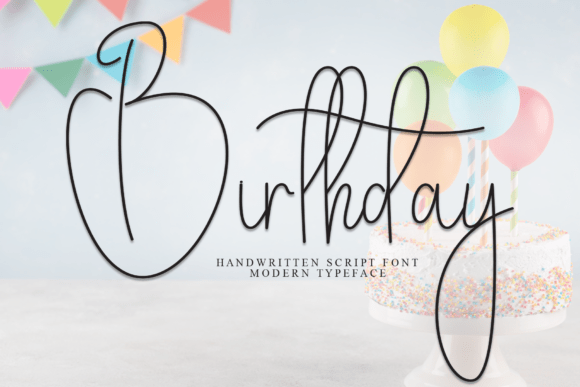
A Celebration of Creativity: The Birthday Font
Have you ever been browsing through a friend’s wedding invitation or a child’s birthday card and felt an instant rush of joy and warmth? That’s the magic of a well-designed font. It’s the first thing that catches our eye, sets the tone for the message, and makes us feel something. Today, we’re excited to introduce you to the Birthday Font, a charmingly casual, handwritten display font that’s sure to bring a smile to your face.
Perfect for adding a playful touch to your design projects, the Birthday Font is a valuable addition to any designer’s toolkit. Whether you’re creating wedding invites, greeting cards, or any other design that needs a dash of fun, this font is an unrivaled pick. Its sweetness and carefree style is sure to infuse joy and whimsy into your creative endeavors.
Birthday Font Key Features
- Unique Characteristics: The Birthday Font features a playful, cursive design with swashes and flourishes, making it perfect for adding a celebratory touch to birthday invitations, cards, and other designs.
Birthday Font Review
Overall, I think the Birthday Font has some great qualities, but it also has some limitations that might make it less appealing to some users.
- Cute and playful design: The font is perfect for creating a festive atmosphere, especially for birthday celebrations or children’s parties.
- High-quality graphics: The font is well-designed and has a professional feel to it, making it suitable for use in a variety of contexts.
- Limited versatility: The font is primarily designed for birthday celebrations, which might limit its use in other contexts.
- Not suitable for formal use: The font’s playful design might not be suitable for formal or professional use, such as in business presentations or documents.
While the Birthday Font has some great qualities, its limitations might make it less appealing to some users. However, for those who are looking for a cute and playful font specifically for birthday celebrations, this might be a great option.
Tips for Getting the Most Out of the Birthday Font
Use bold or italic styles to add emphasis to the Birthday Font.
Combine the Birthday Font with other creative elements, such as balloons or confetti, to create a festive atmosphere.
Birthday Font is ideal for:
- Birthday invitations and party decorations.
- Personalized birthday cards and gifts.
- Wedding and anniversary invitations.